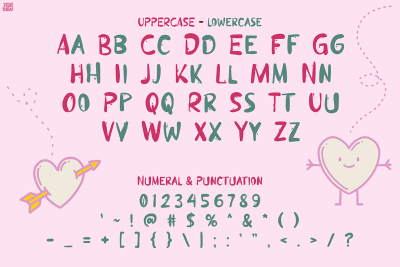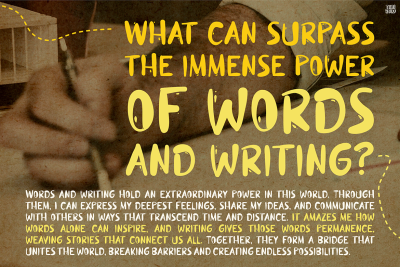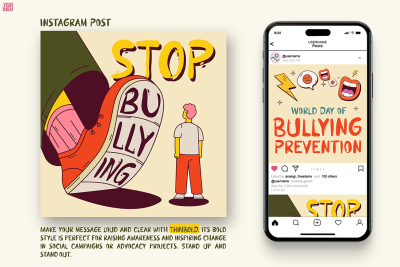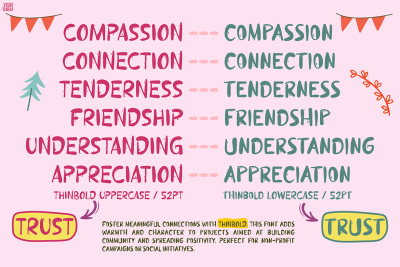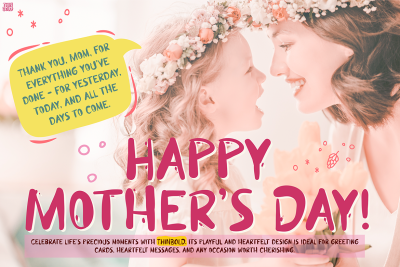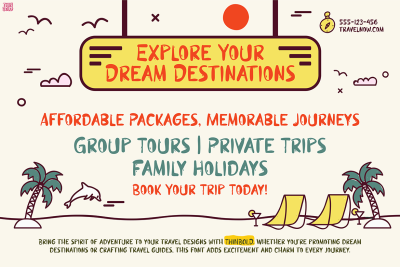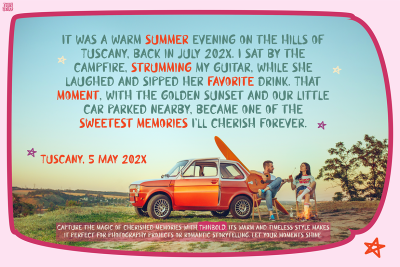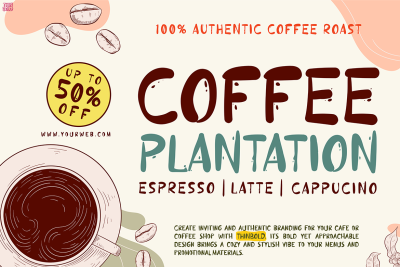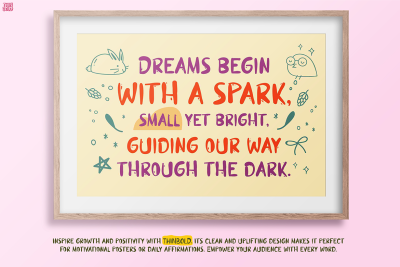
Handwriting Font THINBOLD is a playful and versatile typeface with a modern twist. Its dual-weight combination features a light “thin” style paired with a vibrant “bold” counterpart. This contrast not only adds a delightful balance of elegance and energy to any design but also makes it incredibly eye-catching. Moreover, the fontโs hand-drawn aesthetic includes quirky details like subtle imperfections, which help create a personal and heartfelt vibe. Therefore, itโs perfect for adding warmth and personality to creative projects.
The fontโs design seamlessly blends readability with artistic flair. As a result, its fresh, cheerful look stands out without losing functionality. Furthermore, Handwriting Font THINBOLD works well for various uses, ranging from branding to personal projects. Itโs versatile enough to suit both minimalist layouts and colorful, dynamic designs. Thus, itโs ideal for designs that need authenticity and charm.
When paired with complementary elements, such as illustrations or soft pastel colors, this font can further enhance its appeal. Its unique characteristics also allow it to shine in print and digital media, making it a valuable addition to any designerโs toolkit. Whether youโre crafting posters, flyers, or social media posts, this font will ensure your message gets noticed.
Handwriting Font THINBOLD Suitable For
This font is great for anyone seeking a friendly and approachable feel. For instance, graphic designers, illustrators, and social media creators will love its versatility. In addition, itโs perfect for projects aimed at younger audiences, such as childrenโs books, educational materials, and playful branding.
Small businesses, such as bakeries, craft shops, and lifestyle brands, can also use it to convey warmth and uniqueness. Similarly, itโs ideal for personal projects like DIY invitations, greeting cards, or scrapbooks. The fontโs whimsical nature makes it especially effective for festive and seasonal designs, like holiday cards or party decorations.
Handwriting Font THINBOLD is excellent for customizing digital content, including Instagram posts and YouTube thumbnails. Additionally, itโs a great choice for bloggers and influencers who want to create visually cohesive content. Ultimately, its adaptability makes it suitable for both professional and casual designs, leaving a lasting impression on any audience. Whether youโre working on a personal passion project or a commercial campaign, this fontโs charm and flexibility will help you achieve your creative goals.